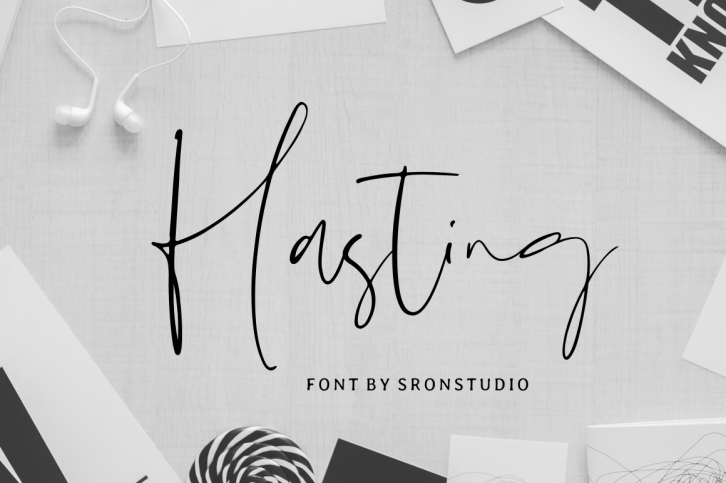
Introducing Hasting Script
Hasting is a modern font perfect for branding, invitation, stationery, wedding designs, social media posts, advertisements, product packaging, product designs, label, photography, watermark, special events or anything.
Hastingcomes with full set of uppercase and lowercase letters, ligatures, multilingual symbols, numerals and punctuation.